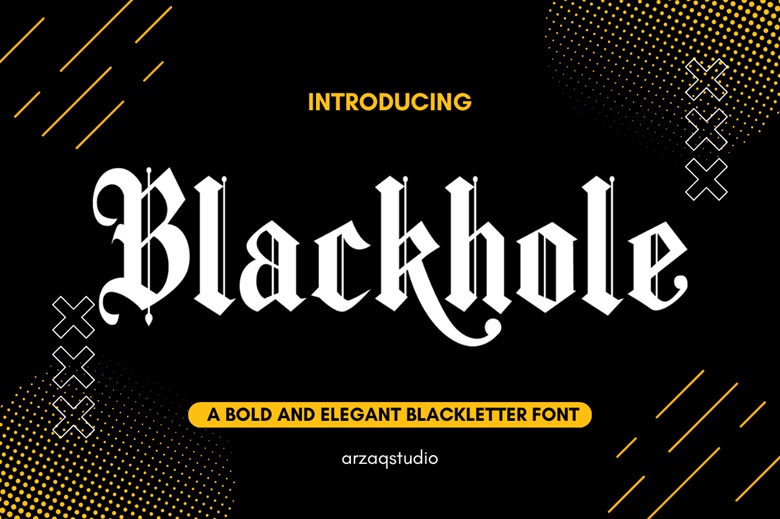
Blackhole Blackletter Font
Blackhole is a bold and elegant blackletter font with a classic gothic style and modern strength. Their edges are sharp and the ornamental details are ideal in designing eye-catching logos, tattoos, posters, labels and vintage designs.
Blackhole makes every individual project make impactful and dramatic statements, whether they are in a dark theme, metal band covers, or medieval-related branding. Perfect to designers who desire to express power, enigma and eternal style.